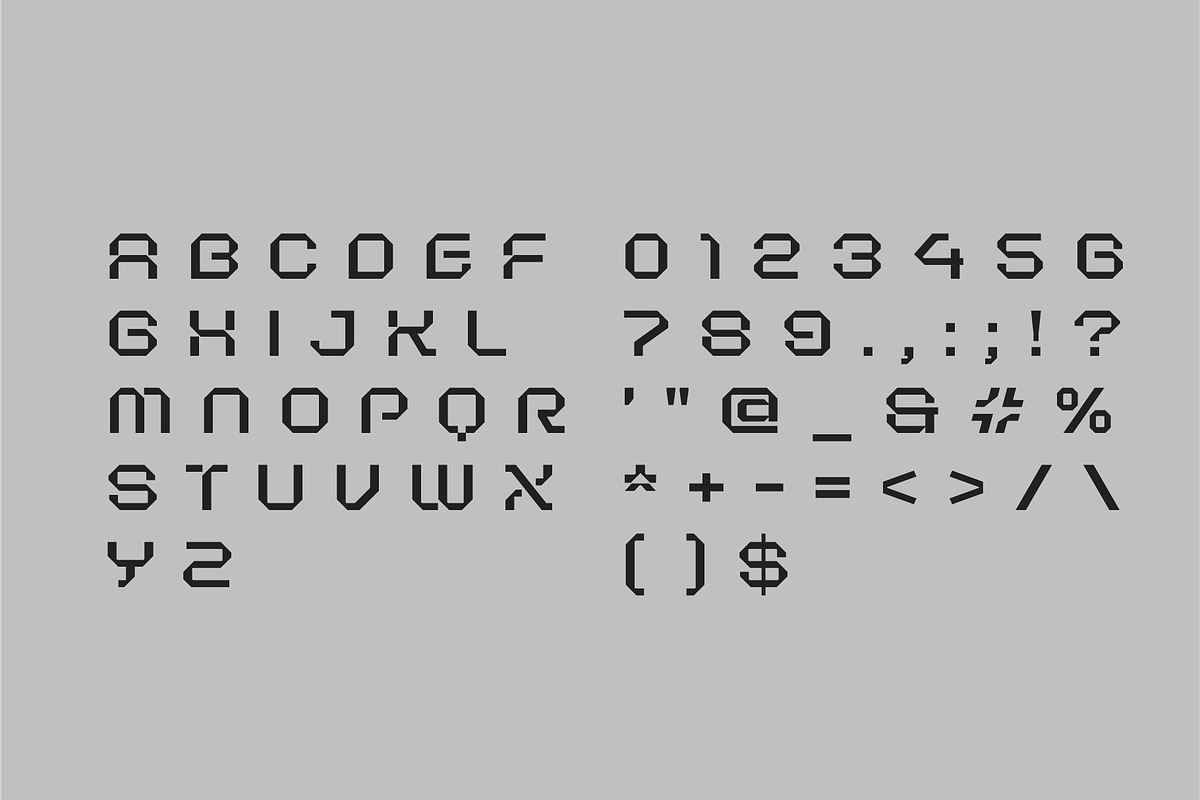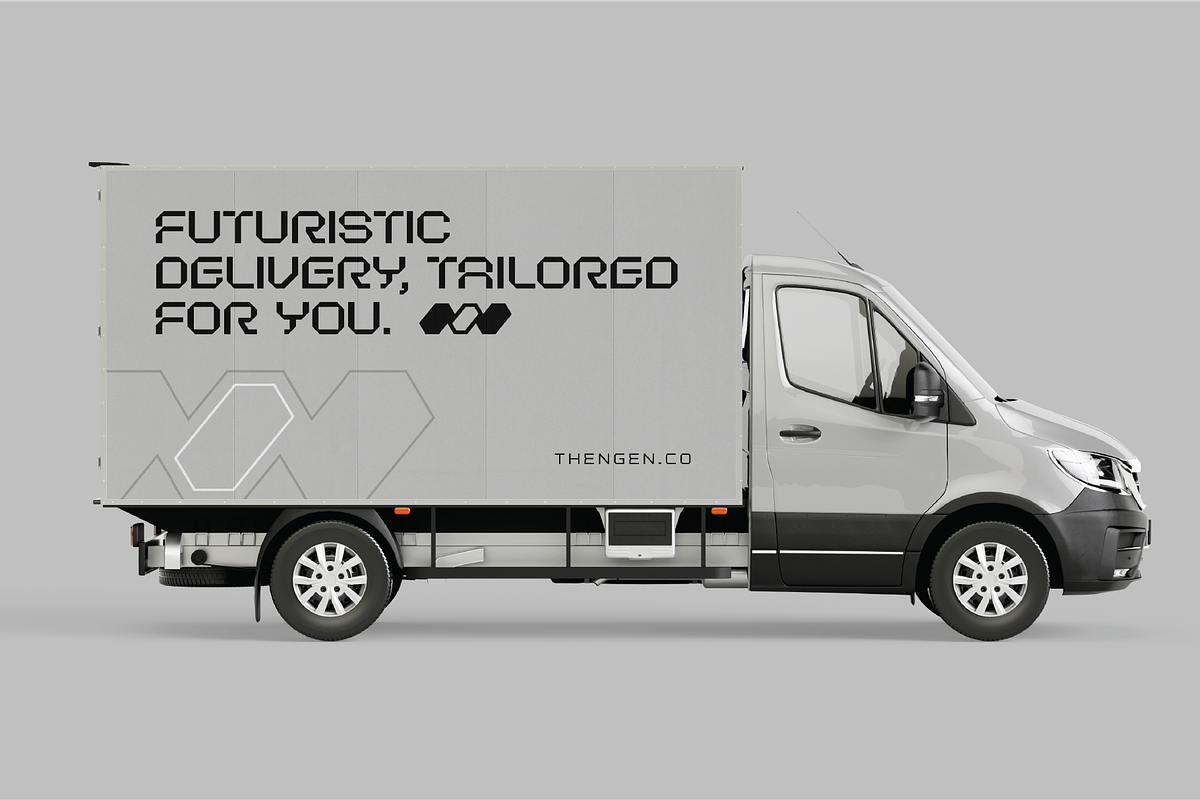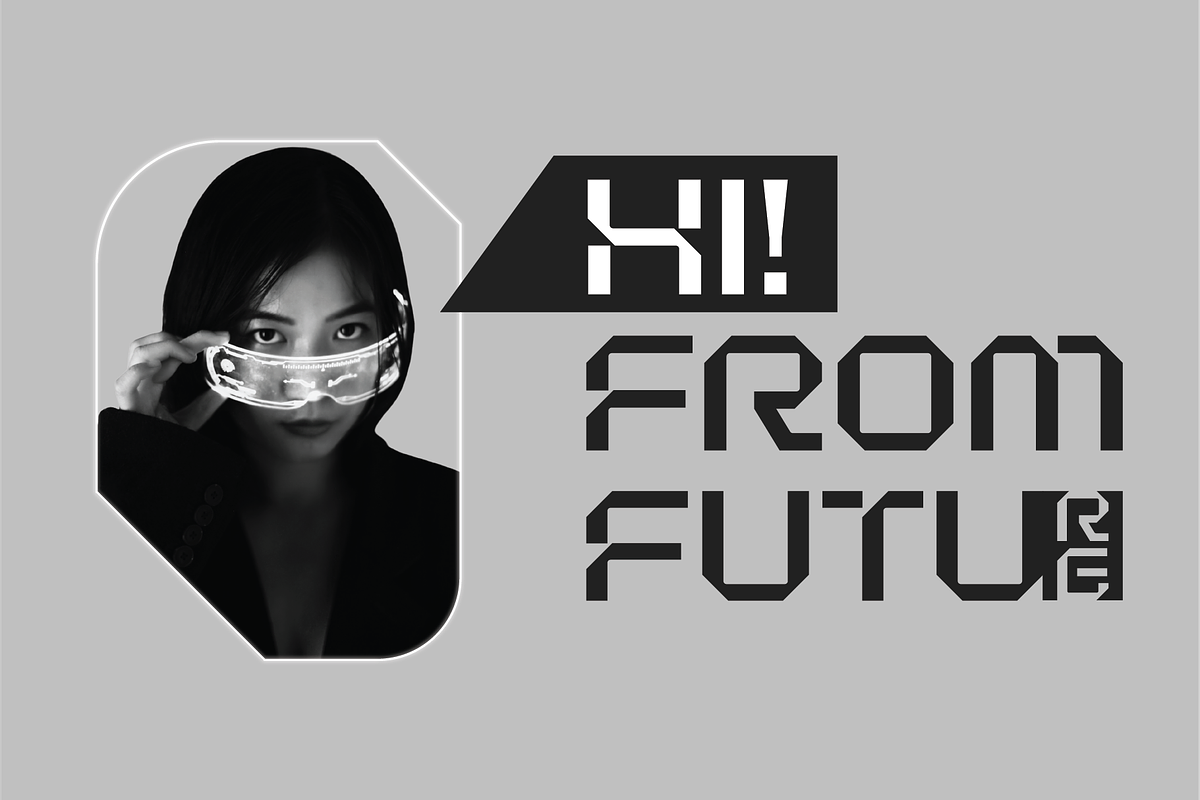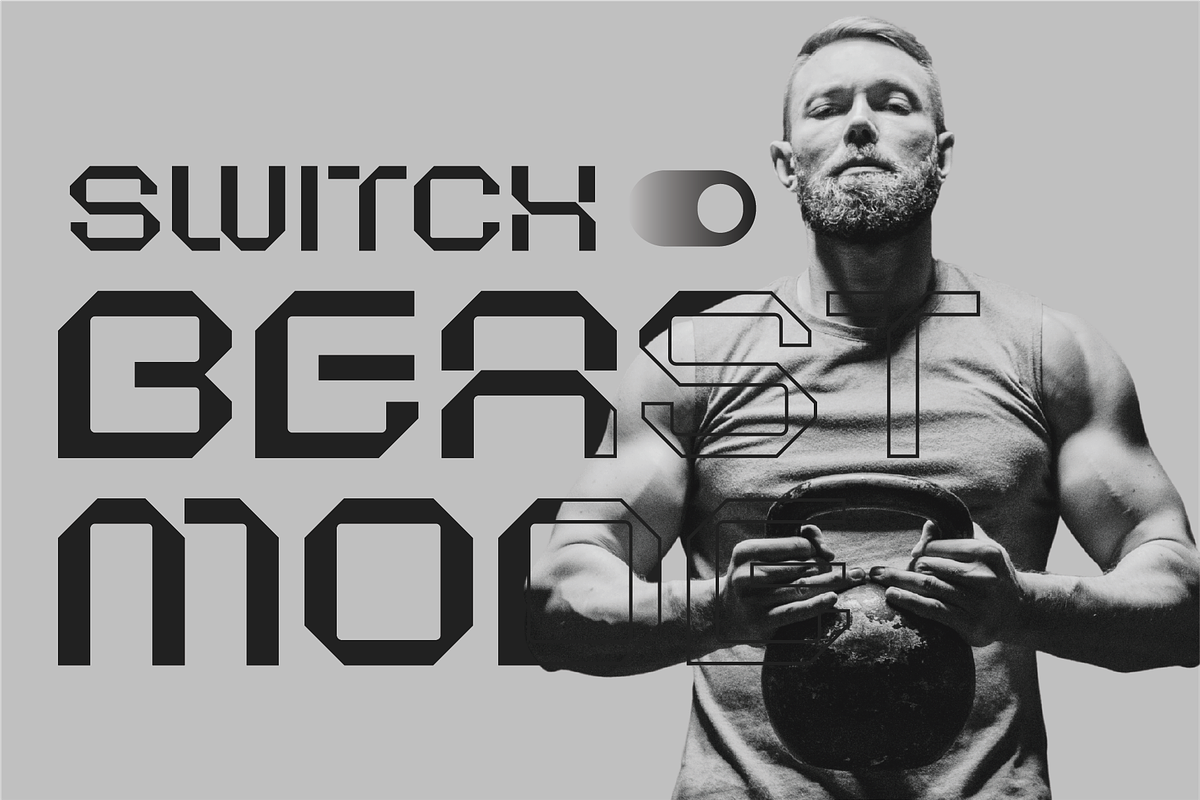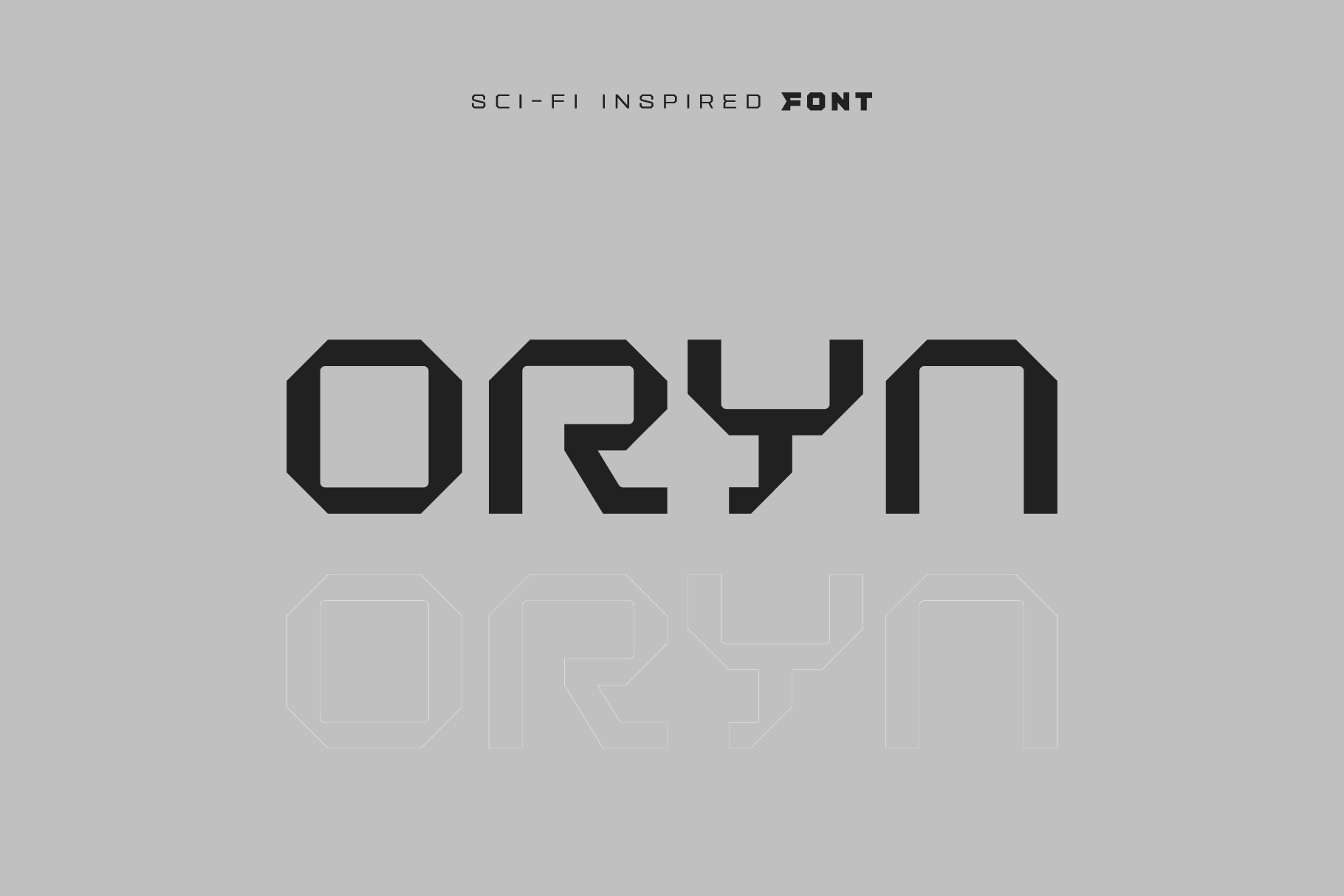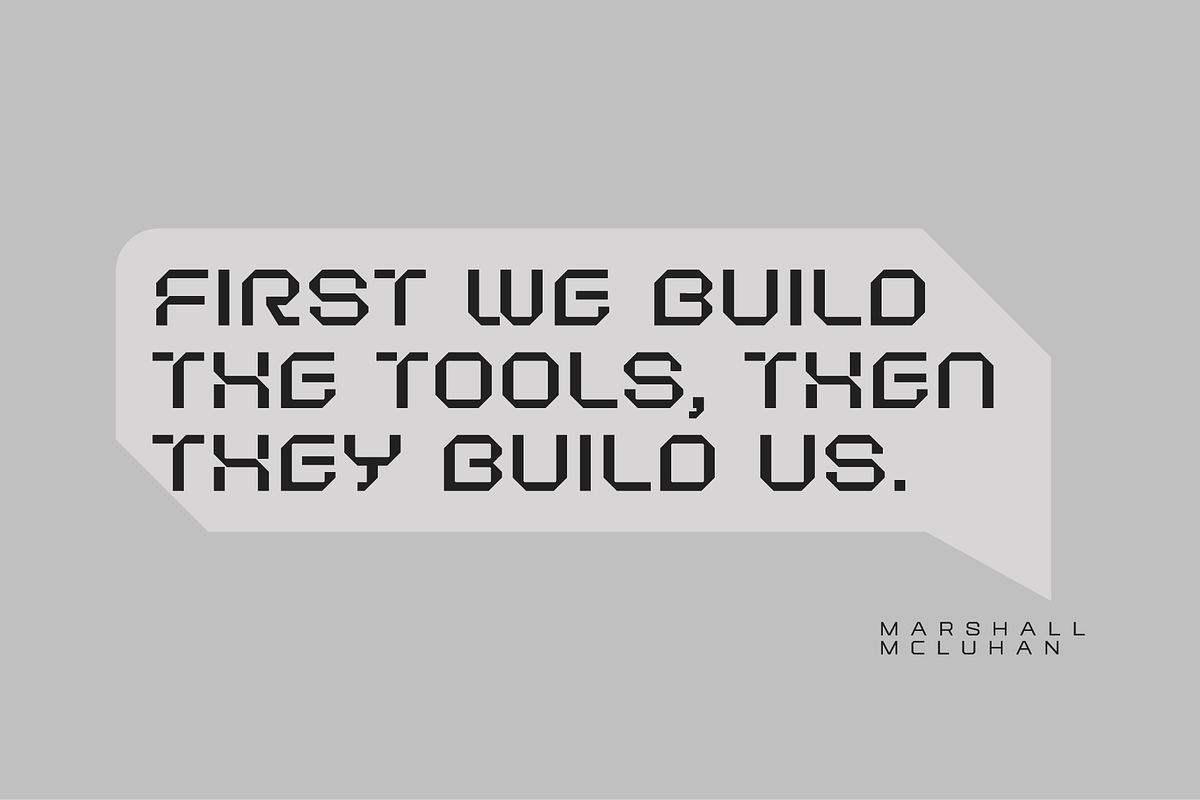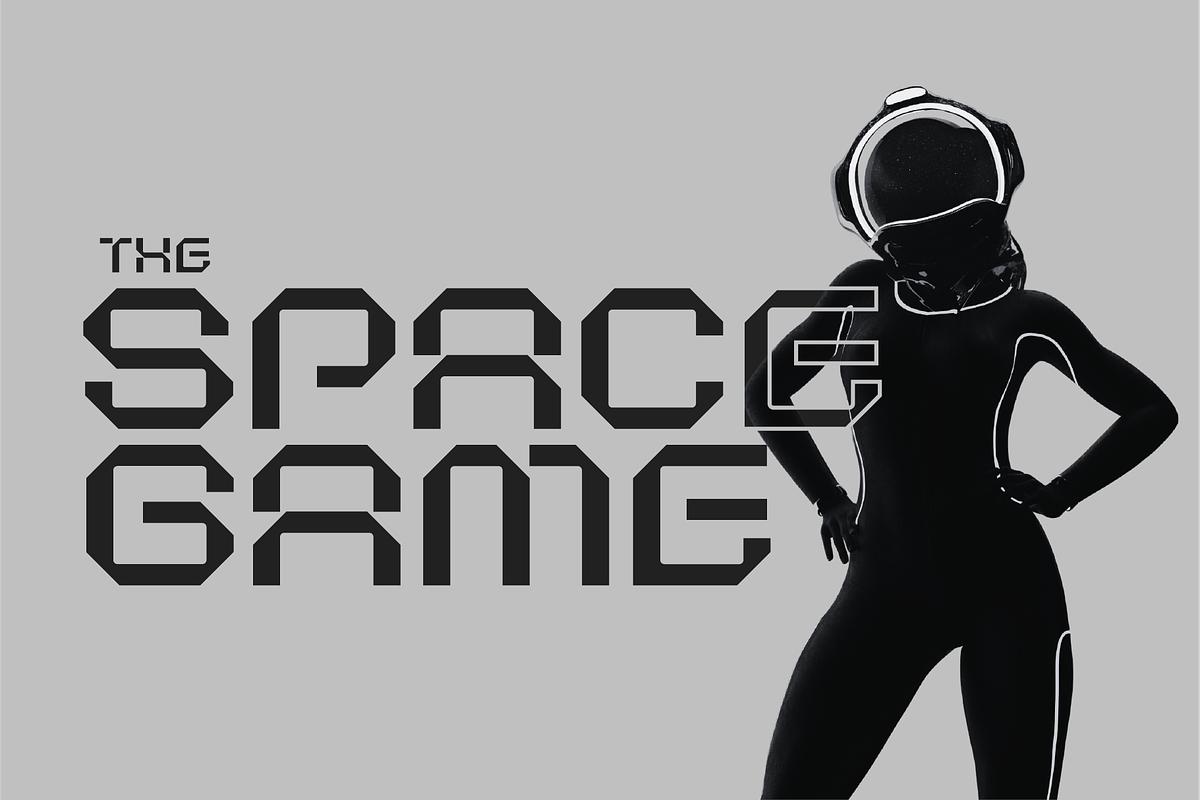
Oryn Bold Geometric Tech Font
Oryn is a bold geometric font designed for futuristic branding, digital interfaces, and innovative designs. This futuristic bold font features sharp angles and clean lines, Oryn delivers a sleek, high-tech aesthetic, with its clean lines, angular shapes, and modern structure which are the perfect choice for technology, gaming, and sci-fi projects.